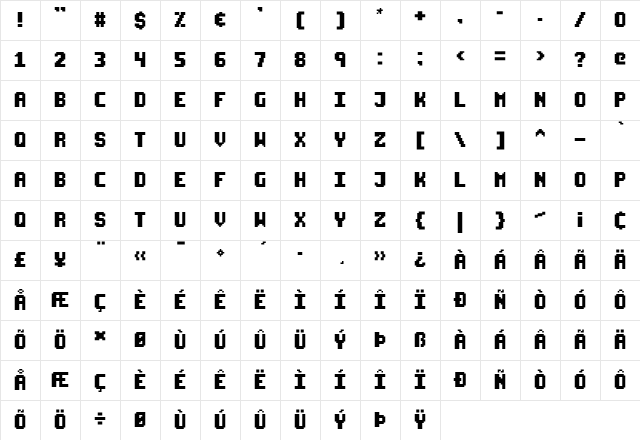
Starseed Pro Regular
Designer: Aleksandr Savenkov, Droqen
Design Context for Starseed Pro
Starseed Pro is a composed and adaptable typeface that performs quietly and consistently across a wide range of design contexts.